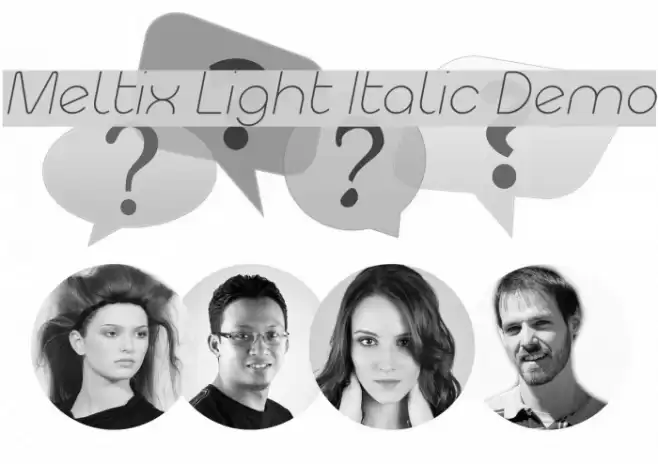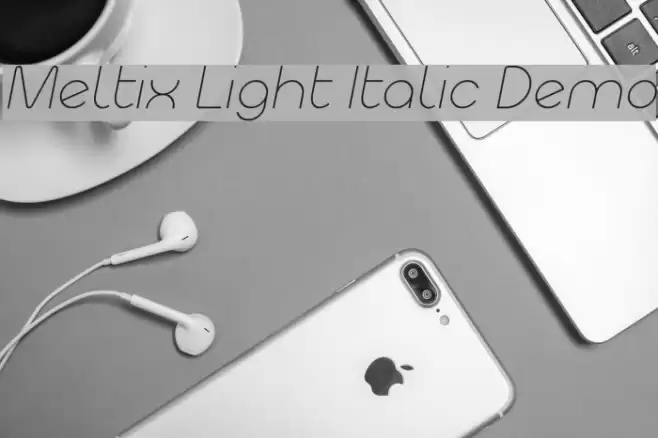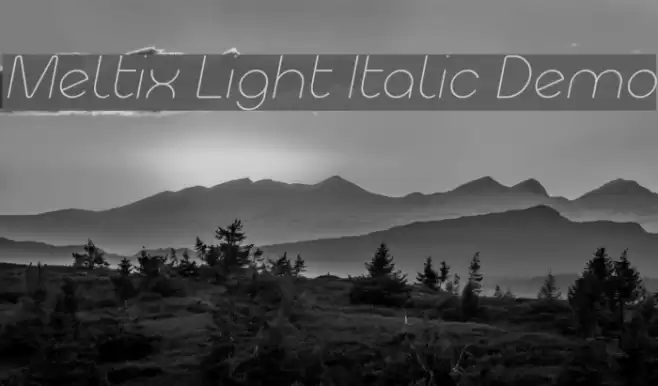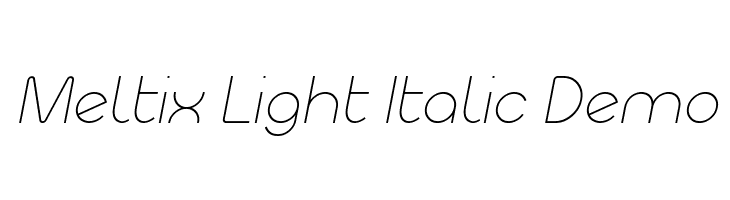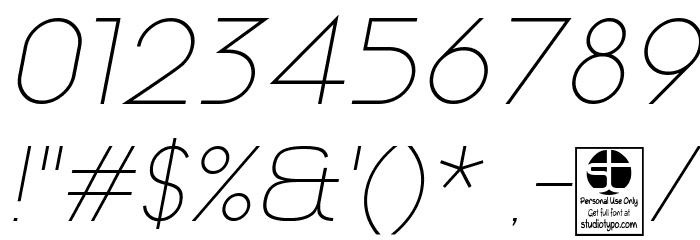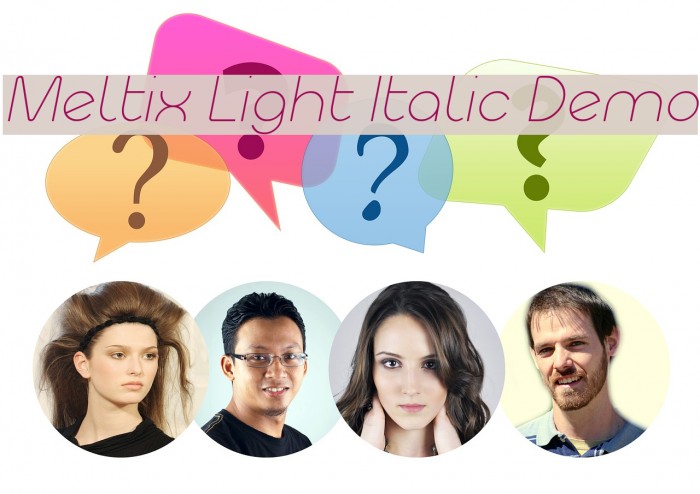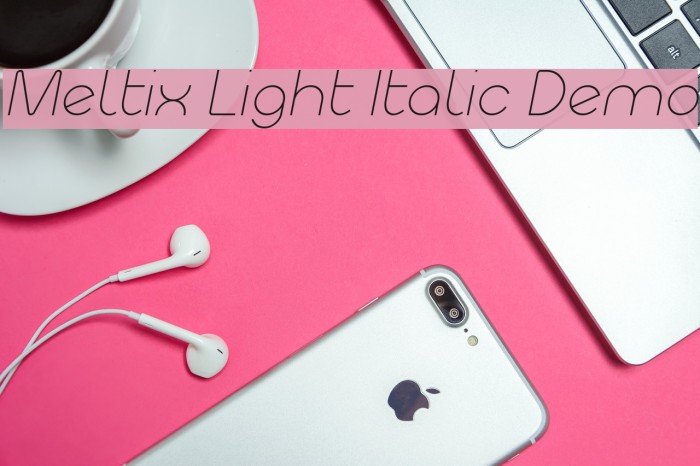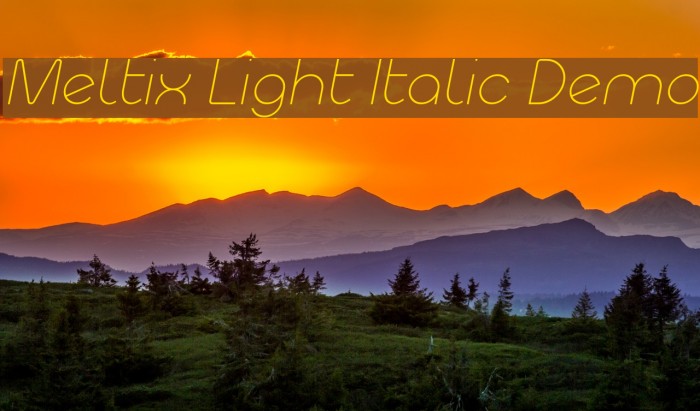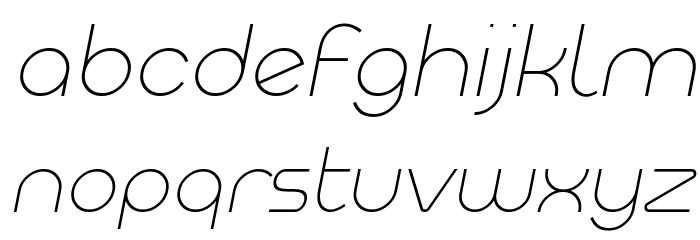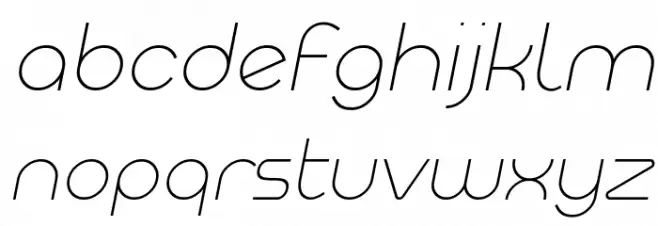
Meltix Light Italic Demo
This font features a sleek and modern design with a light and airy feel. The characters are slightly italicized, giving a sense of motion and elegance. The strokes are thin and consistent, contributing to a clean and minimalist aesthetic. The uppercase and lowercase letters maintain a uniform style, with rounded edges and smooth curves. Numbers and special characters are designed to match the overall style, ensuring a cohesive look across all text elements. The font's simplicity and clarity make it suitable for a variety of design applications.
A modern, light, and italicized font with a sleek and minimalist design.
- Proposed Projects: Ideal for modern branding, minimalist posters, elegant invitations, and stylish website headers.
- Weight: Light